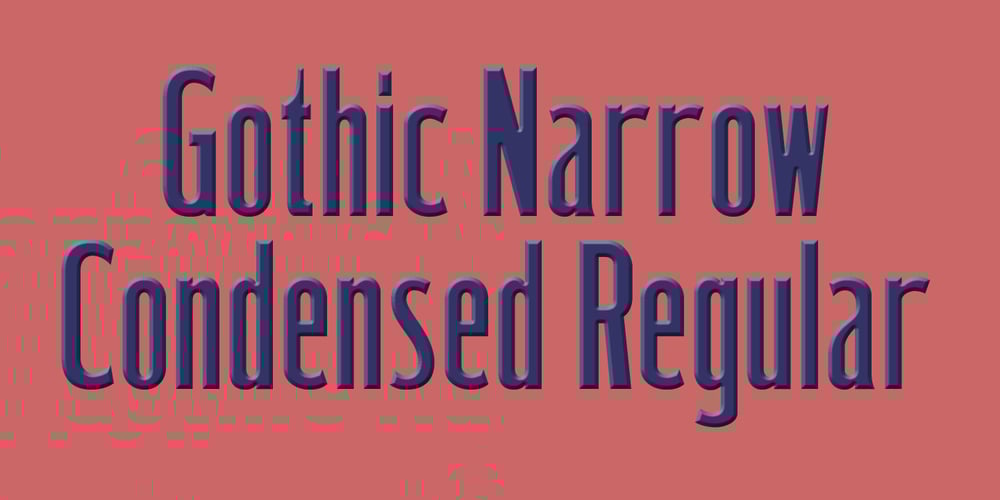
Gothic Narrow Font Family was designed by Jordan Davies and published by Wooden Type Fonts. Gothic Narrow contains 1 styles and family package options. A revival of one of the popular sans serif wooden type fonts of the 19th century, narrow, short ascenders and descenders.